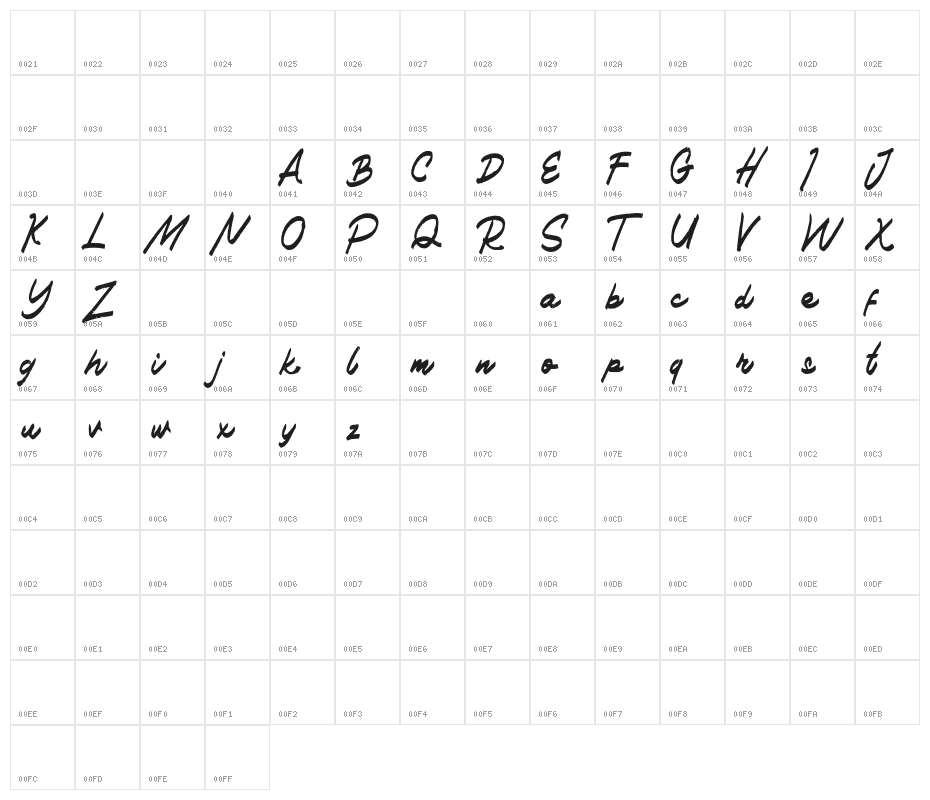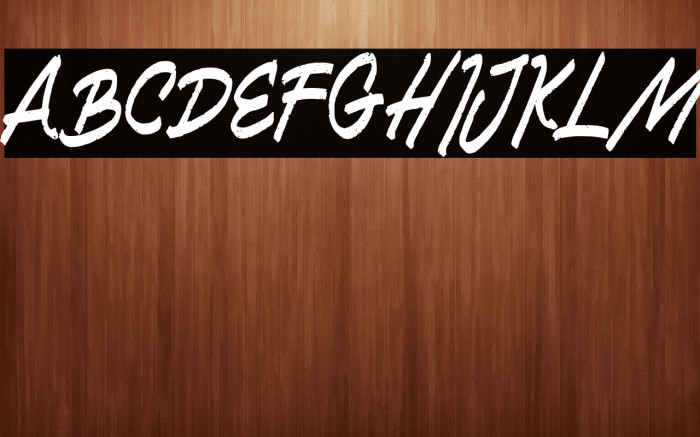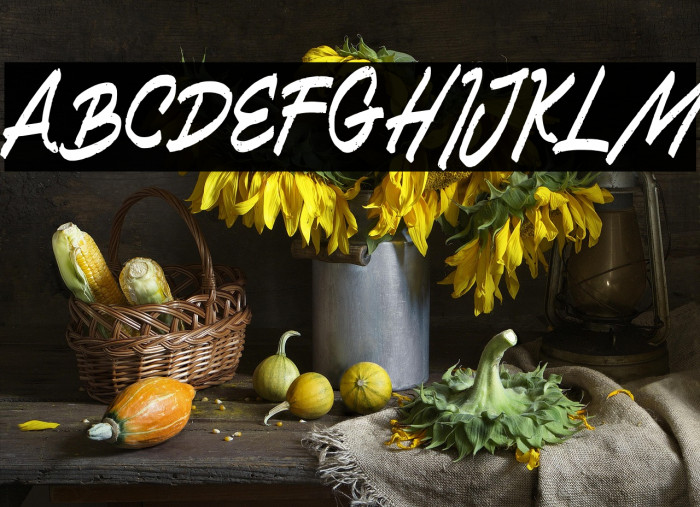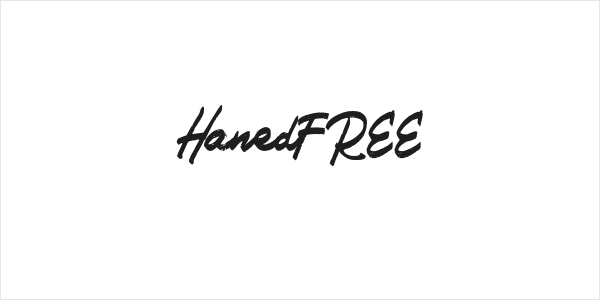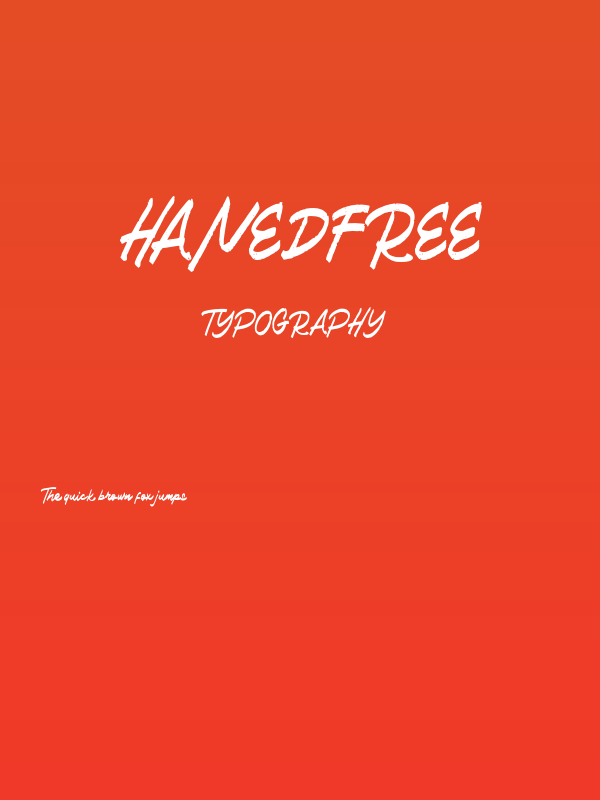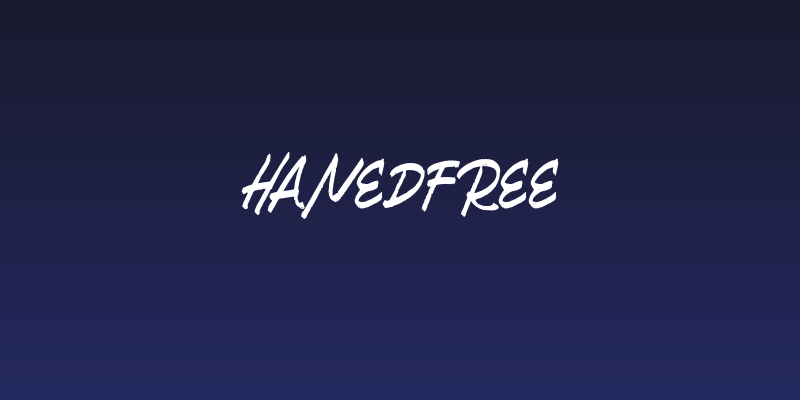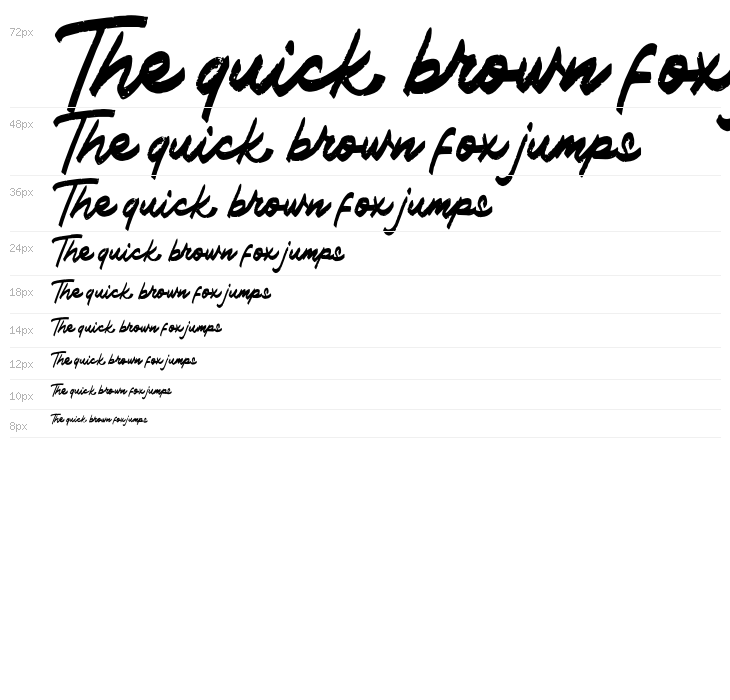
HanedFREE Font
HanedFREE Description
This font features a dynamic and energetic script style, characterized by its bold and expressive strokes. The letters are connected in a fluid manner, giving it a handwritten appearance. The uppercase letters maintain a consistent height, while the lowercase letters vary slightly, adding to the casual and informal feel. The texture of the strokes is rough, with a slightly distressed look, which enhances its artistic and creative appeal. This font is well-suited for projects that require a personal touch or a sense of movement and spontaneity.
| Use Case | Logos, Headlines, Invitations |
| Proposed Projects | Ideal for branding, invitations, posters, and creative projects that require a personal and artistic touch. |